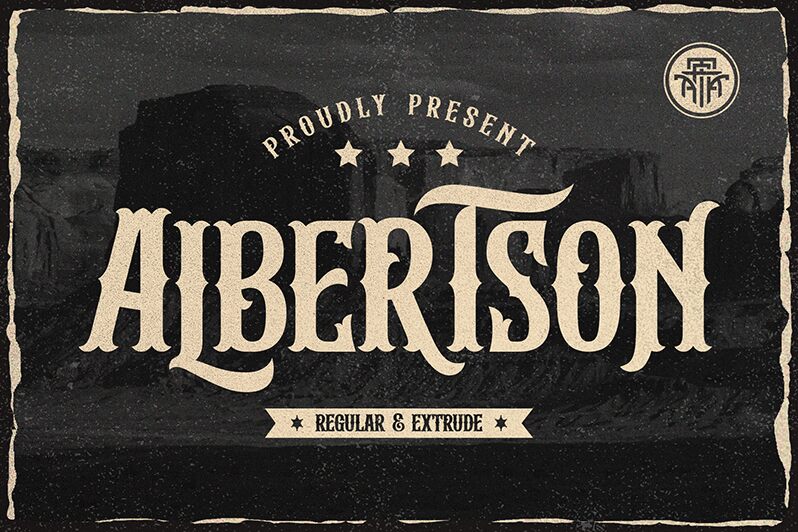
Albertson, the bold and condensed display font by Arterfak Project, brings a touch of the Wild West to your projects. With its strong and sturdy letterforms, this typeface is perfect for creating eye-catching headlines for posters, signage, and branding materials. Its condensed width allows for maximum impact in limited spaces, making it an ideal choice for packaging design or website headers. Unleash your creativity and transport your audience to the rugged landscapes of the Old West with Albertson font's distinctive Western style.